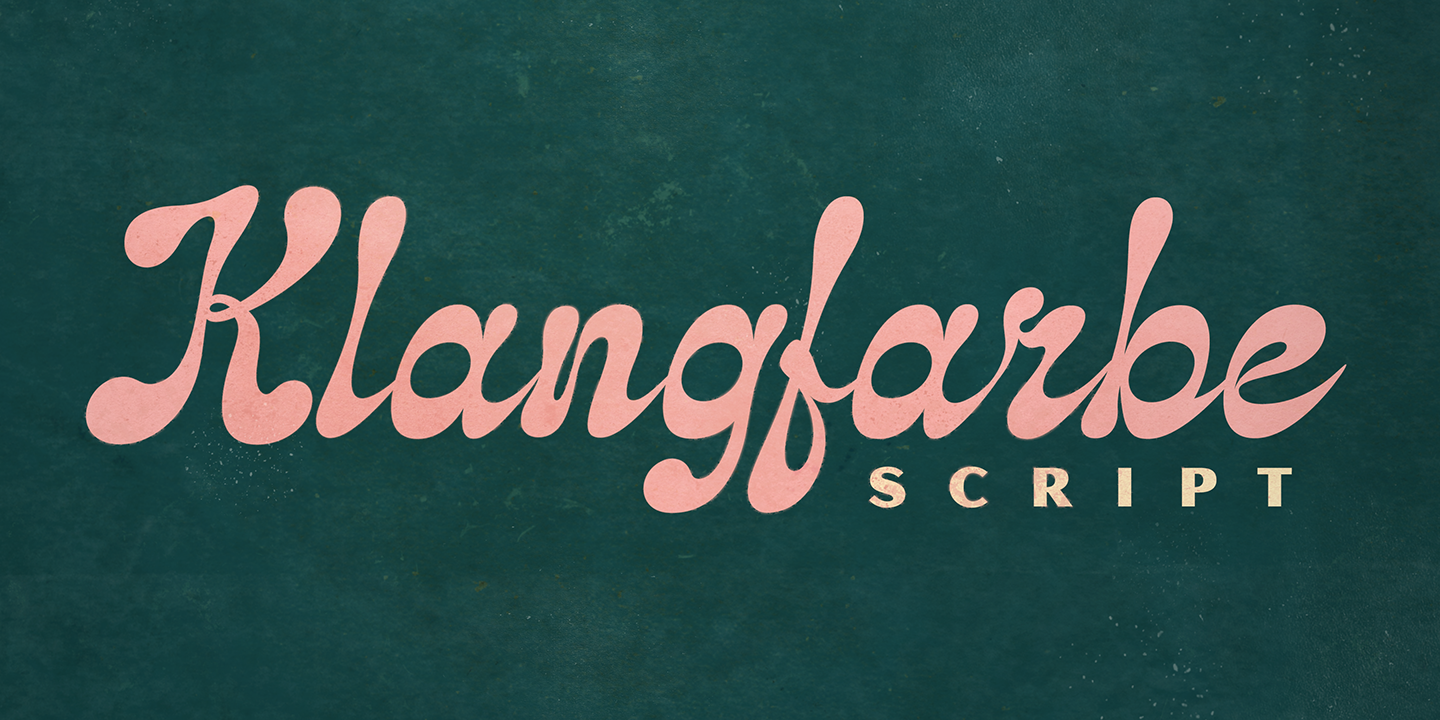
Klangfarbe Script Font is a beautifully expressive and profoundly artistic typeface, perfectly suited for projects that aim to capture the harmonious essence of musicality, the emotional depth of tone, and an undeniable sense of graceful artistry. Imagine it gracing the covers of classical music albums, adding an elegant and lyrical touch to bespoke wedding invitations, or providing a captivating aesthetic for fine art prints and poetry collections. It's also an excellent choice for crafting distinctive branding for creative businesses, designing unique labels for artisanal products, or infusing digital content and social media graphics with a vibrant and inviting personality that resonates with depth. If you're looking to convey elegance, emotion, and an undeniable sense of melodic beauty, Klangfarbe Script Font is an outstanding selection.
What makes Klangfarbe Script Font so exciting? It’s its unique ability to blend the natural spontaneity of genuine handwriting with a refined, almost rhythmic flow, creating a font that feels both intimately personal and remarkably sophisticated. This font often features graceful connections, charming irregularities, and a lively movement that gives it an undeniable charisma and visual richness, reminiscent of a maestro’s fluid hand. Despite its decorative nature, Klangfarbe Script Font is meticulously designed to maintain excellent readability, ensuring your message is communicated beautifully and with an ethereal, captivating tone. Designers will appreciate its versatility in creating designs that feel both artistically profound and professionally polished, making it a go-to choice for brands and projects that aim to connect with their audience through compelling visual storytelling that echoes a beautiful melody.
The Klangfarbe Script Font family is typically designed to showcase a singular, beautifully crafted script style that perfectly embodies its unique appeal. While it may not feature extensive weight variations like a traditional text font, its strength lies in its inherent personality and often includes a rich set of stylistic alternates, ligatures, or swashes that enhance its elaborate aesthetic. These subtle details allow Klangfarbe Script Font to maintain its cohesive and enchanting look across various applications, from elegant brand endorsements to charming personal correspondence. Discover the captivating allure of Klangfarbe Script Font Free Download and infuse your designs with an unforgettable sense of harmonious splendor.